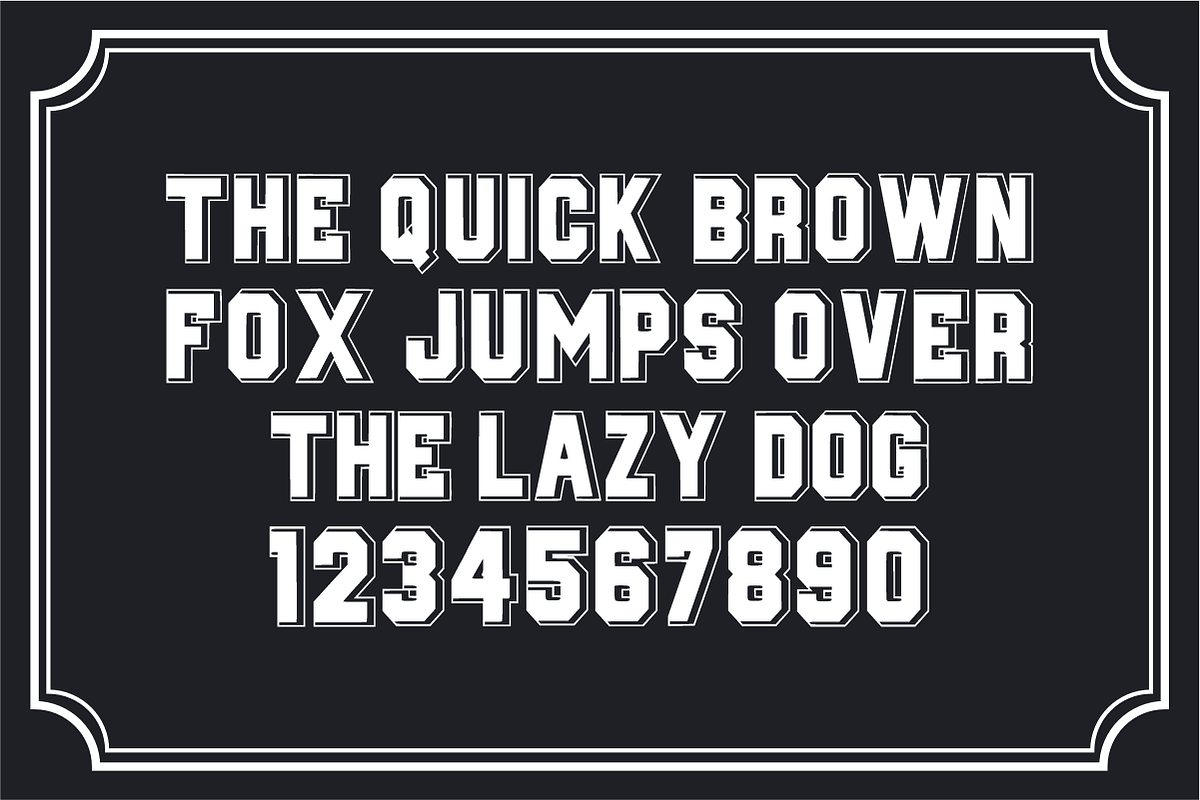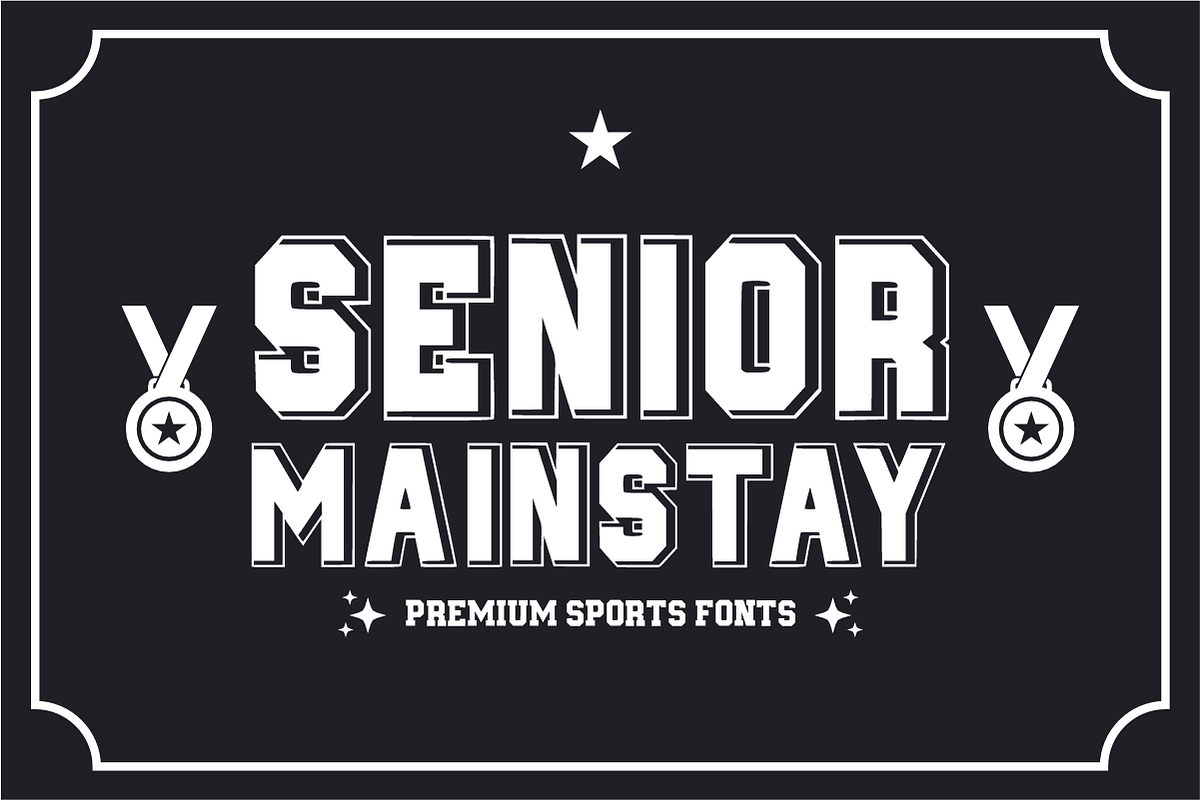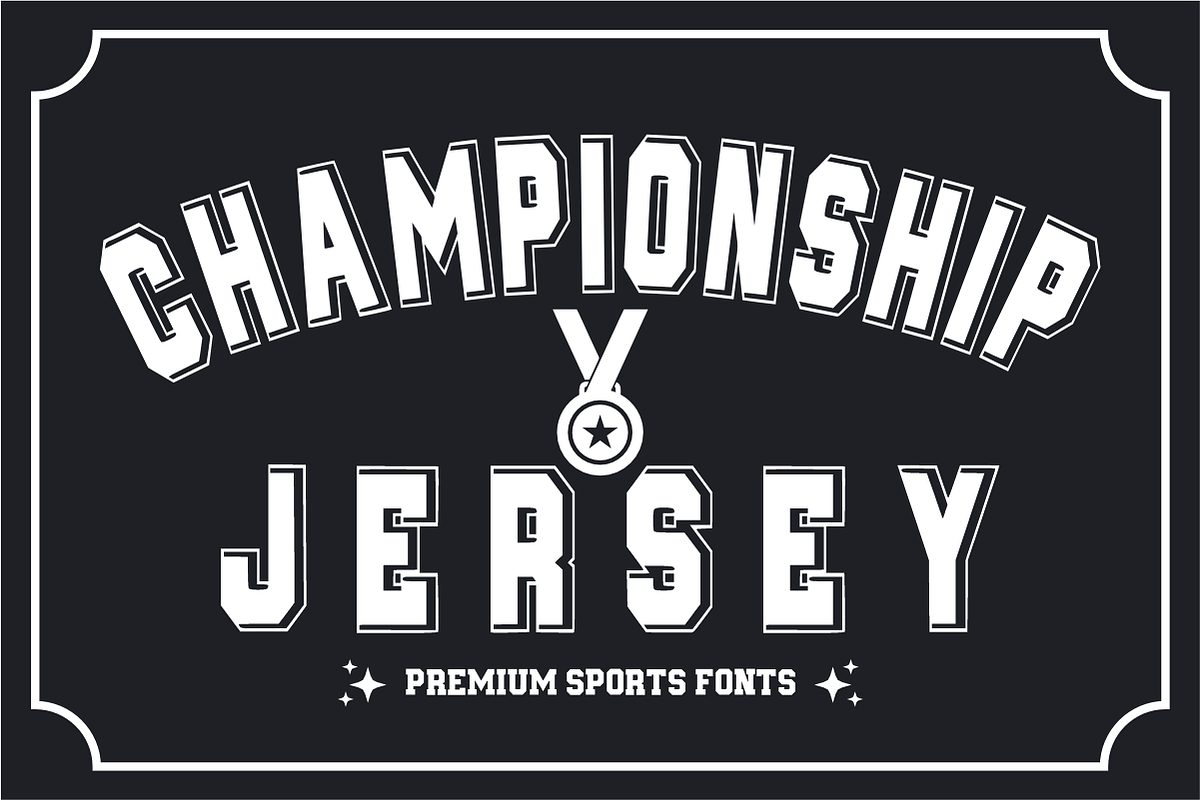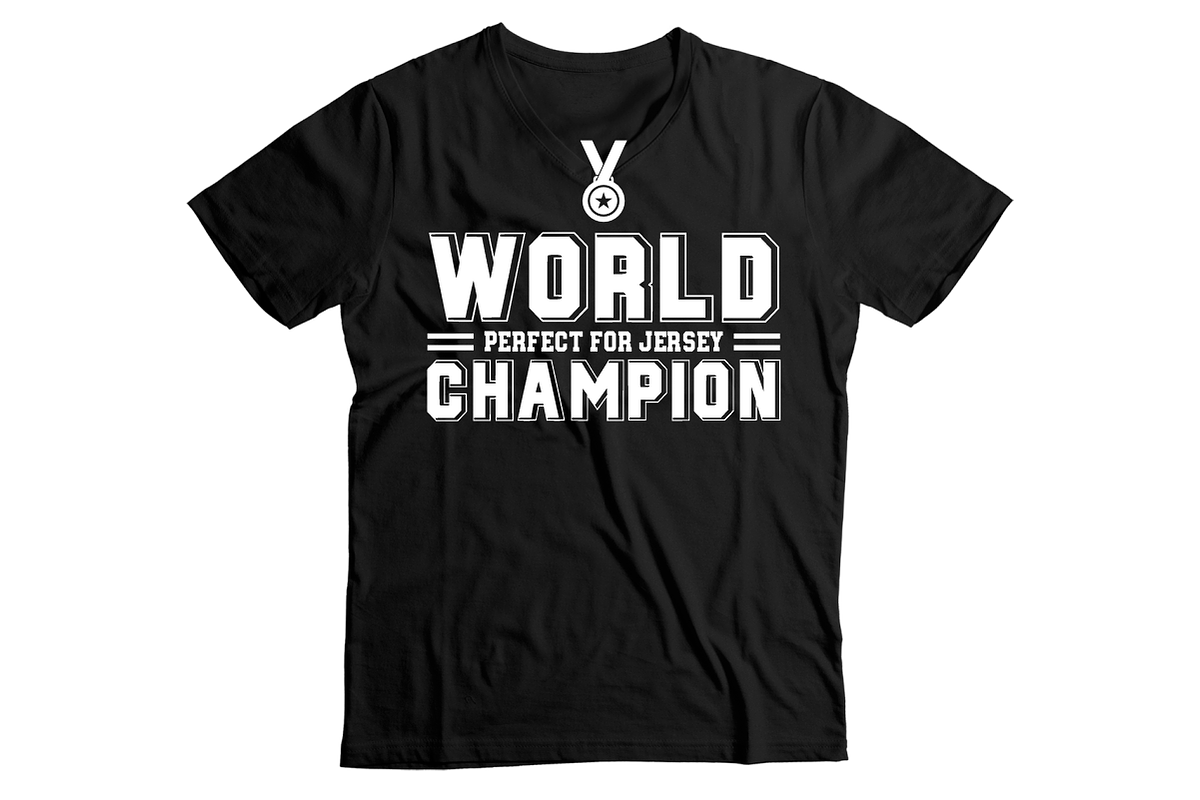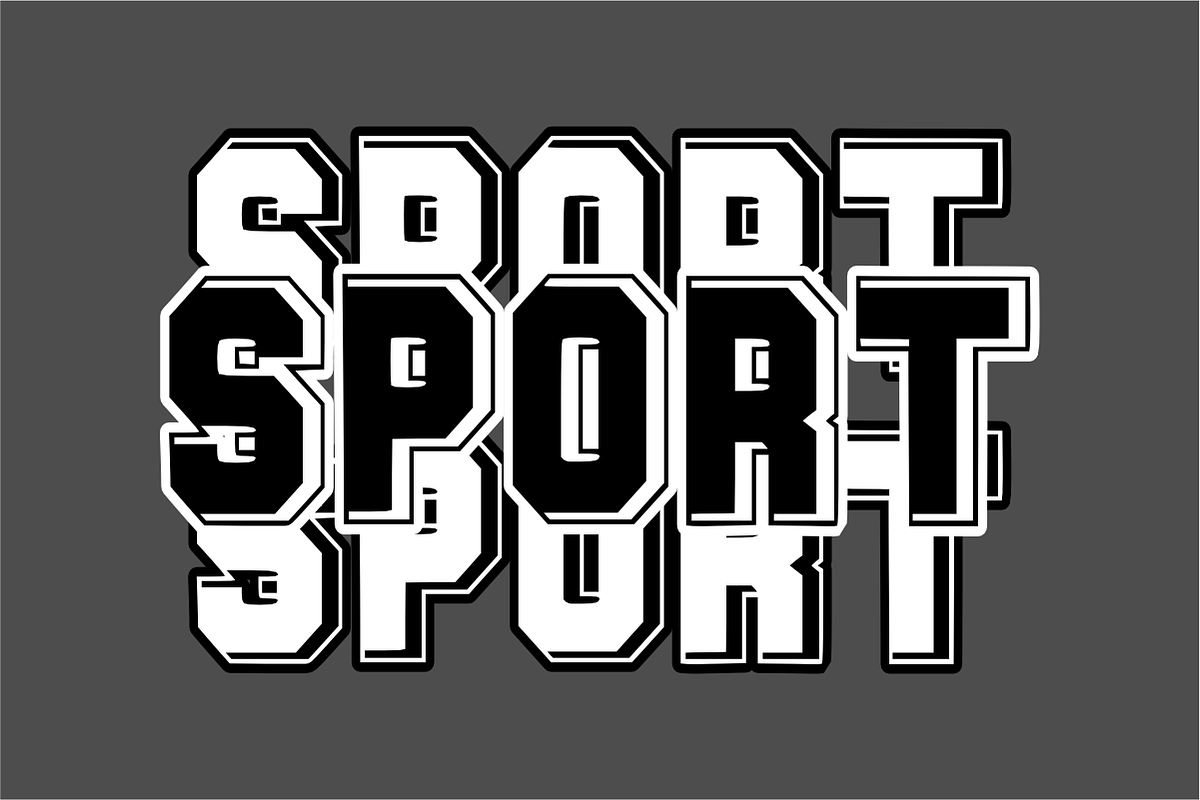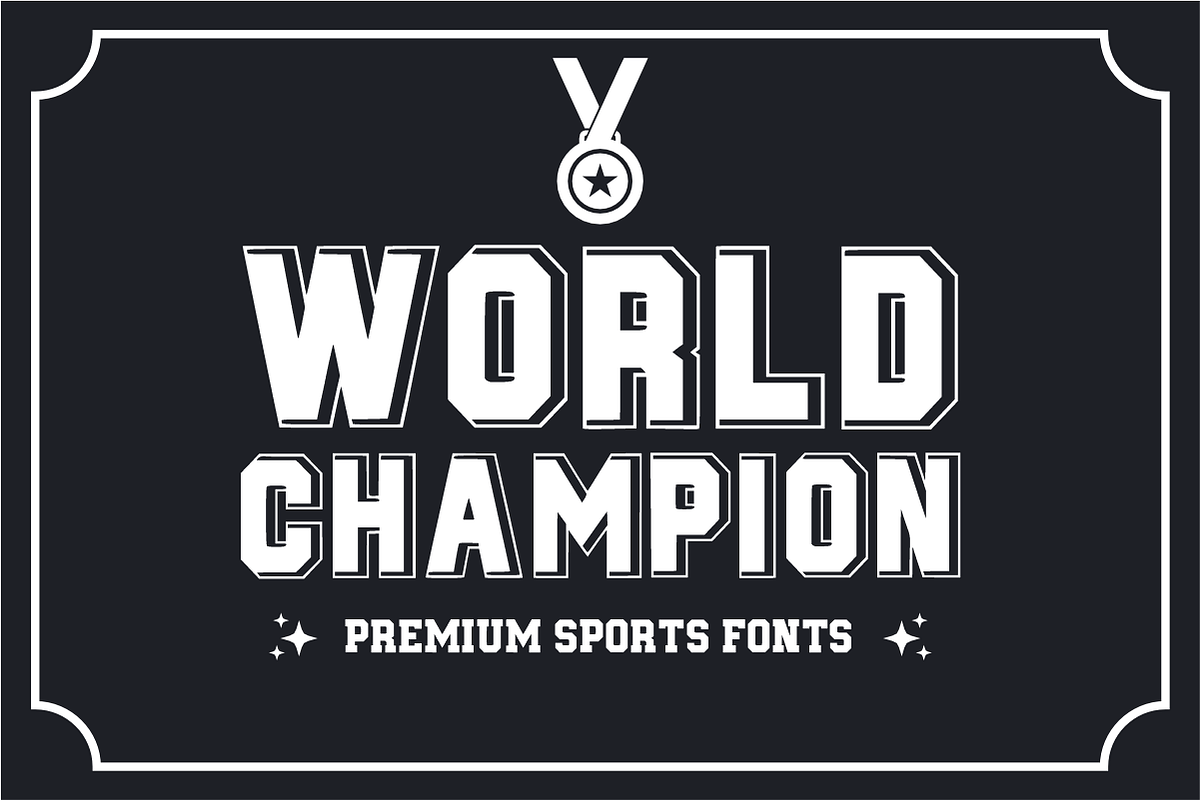
Championship Jersey โ Slab Serif
๐ Championship Jersey โ Professional Athletic Display Font ๐ฅ
Design like a champion and dominate the field!
Championship Jersey is a premium, bold athletic font engineered for high-performance branding. Featuring a distinct inline detail that adds depth and a professional "pro-league" touch, this font captures the essence of victory and collegiate tradition. Itโs not just a block font; itโs a versatile design tool crafted to give your sports projects an authentic, authoritative look.
โจ Why Championship Jersey is the Winning Choice:
Unique Inline Detail: The sleek inner line provides a sophisticated, multi-dimensional look that sets it apart from standard flat varsity fonts.
Maximum Readability: Sharp, geometric angles and balanced spacing ensure your text remains legible from the stands to the screen.
Full Character Set: Bold Uppercase Letters (A-Z).
Numbers & Symbols: Professional numerals (0-9) and essential punctuation.